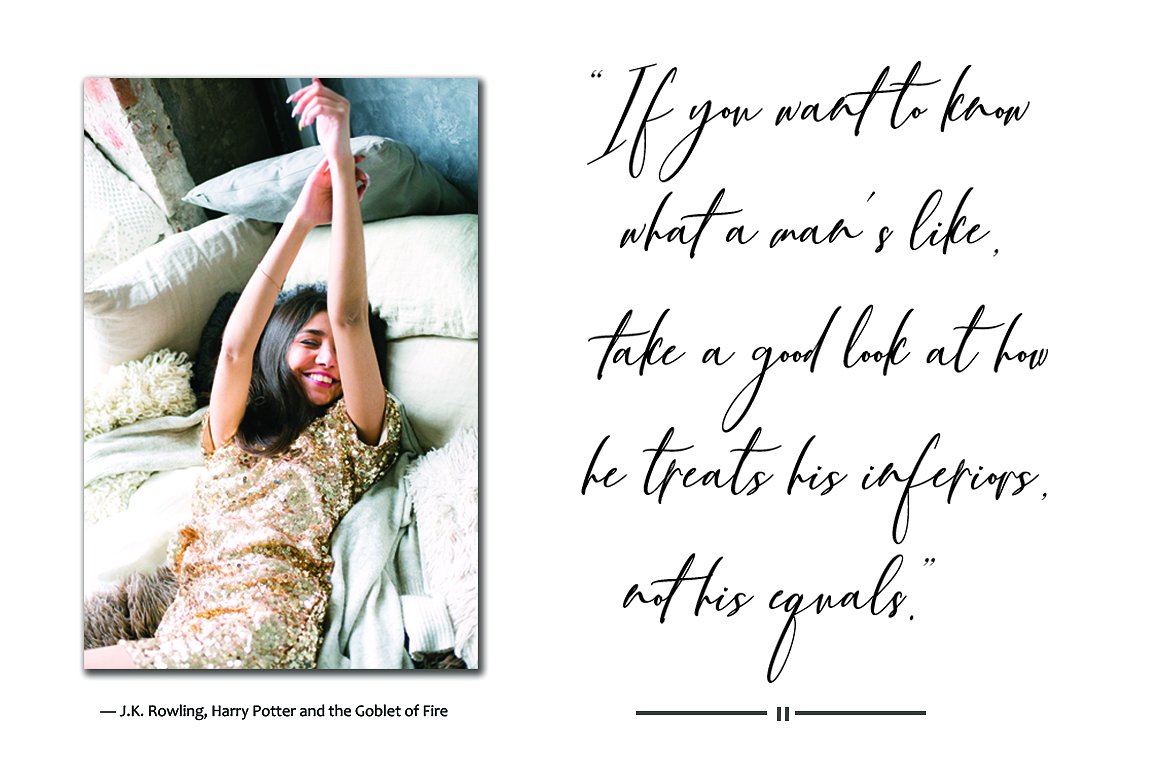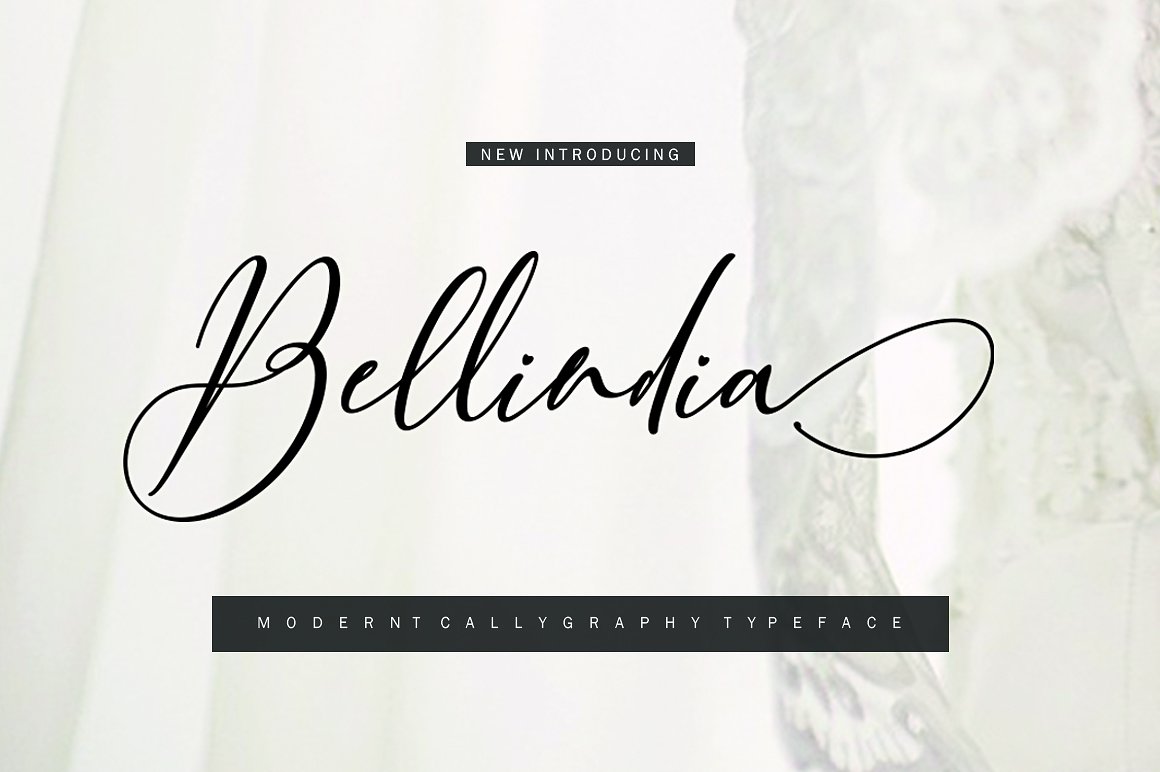
Bellidia Calligraphy
Bellidia Calligraphy Font
Bellindia Script is a modern calligraphy font with the current handwriting style, this font is perfect for branding, wedding invites, magazines, mugs, business cards, quotes, posters, and more, you can try first if you want to buy this font.
Bellindia Script is equipped with 340 glyphs. and by having many of these glyphs there will be able to choose the letters according to your likes, lots of variations and options for each letter, so you can customize on your design choices.